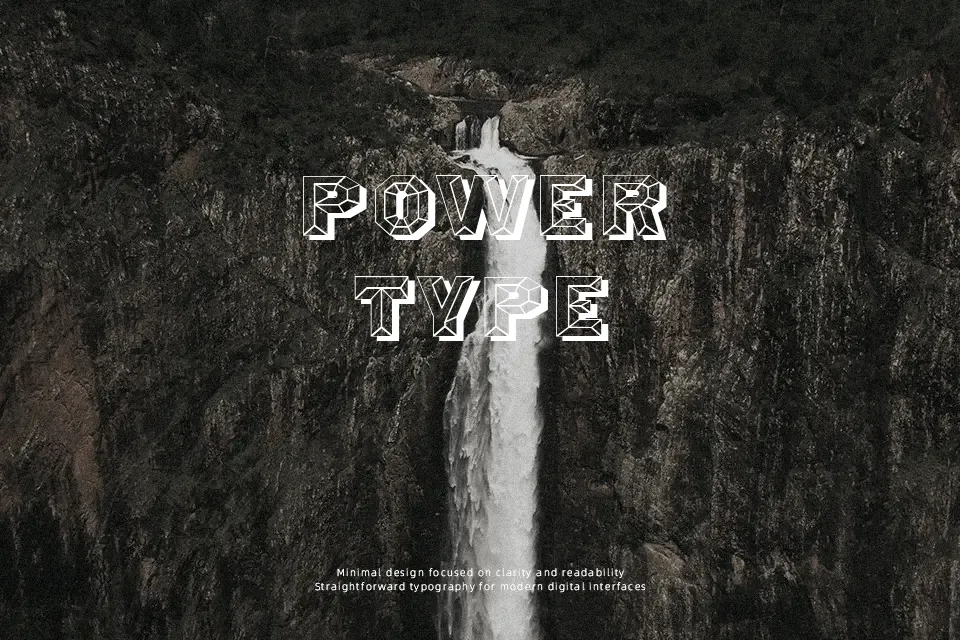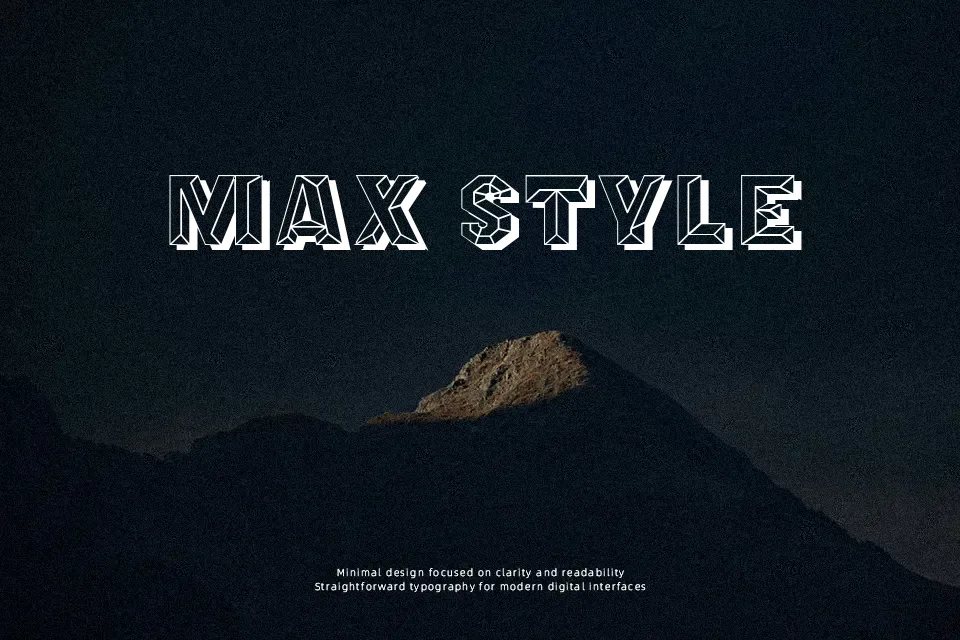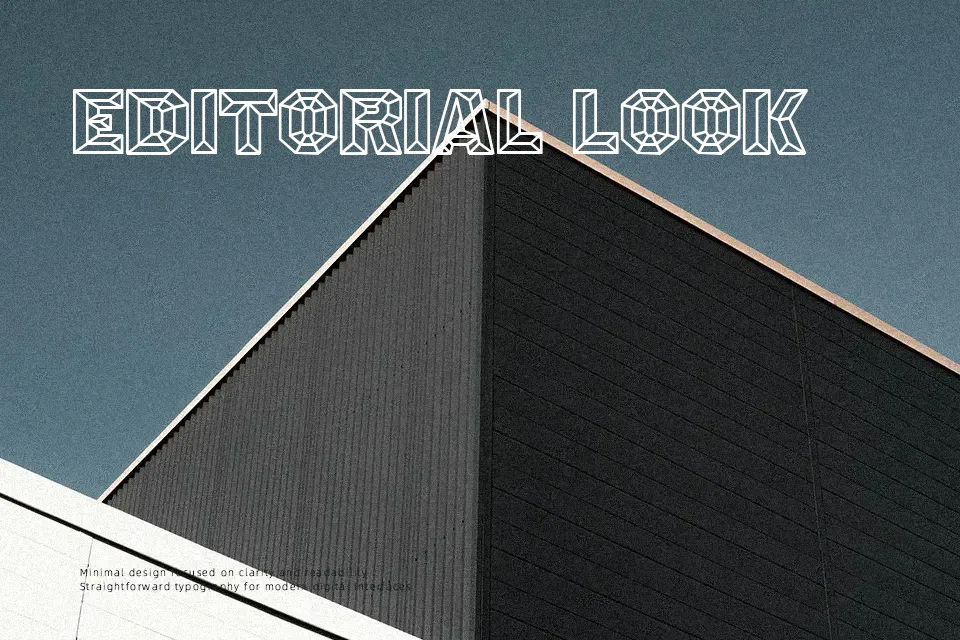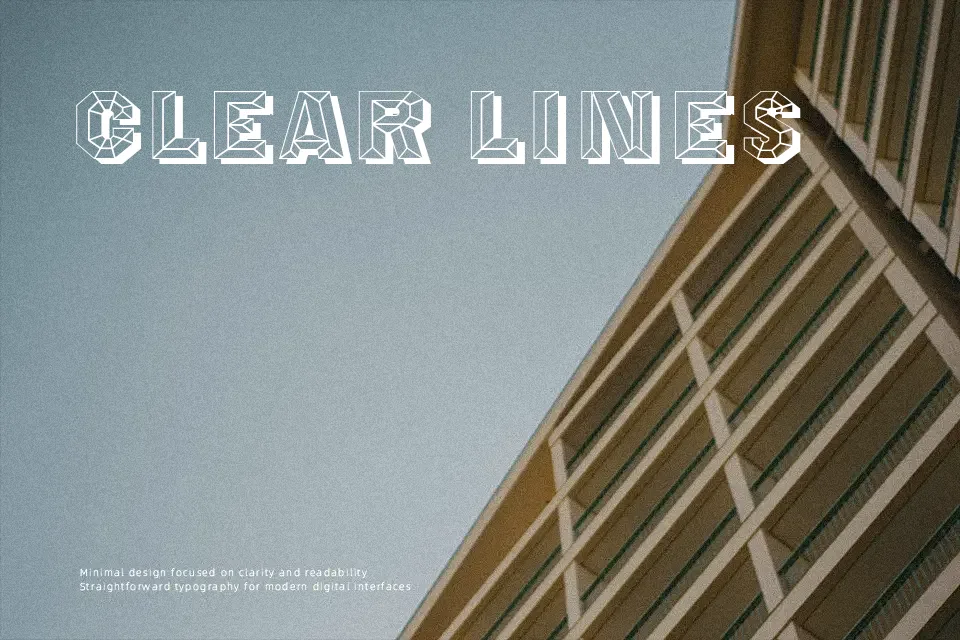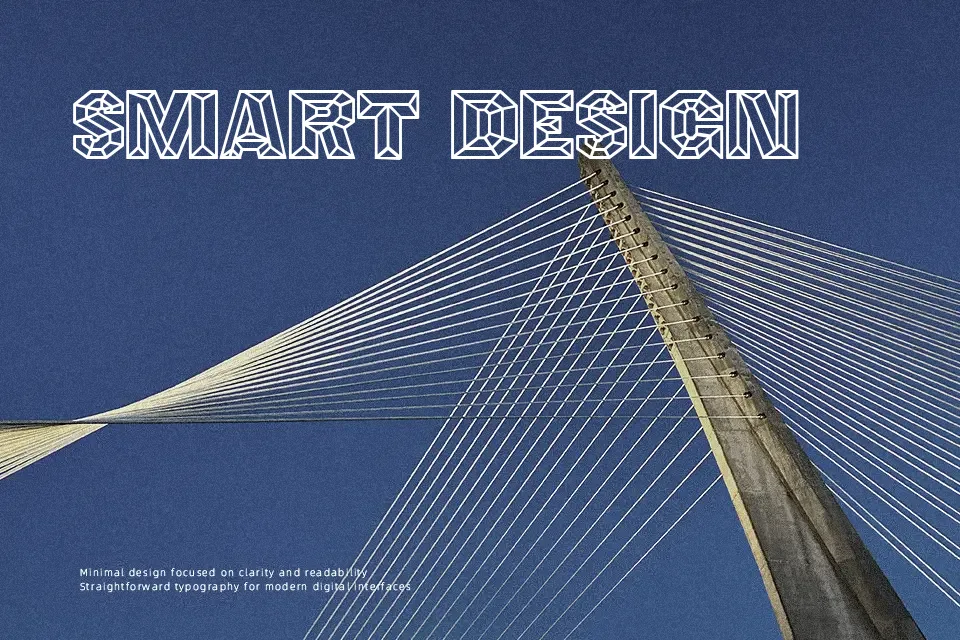
Photographer Font is designed for display text, using stylized letterforms that give short words a distinct visual presence. Its character shapes are more expressive than conventional reading type, making it better suited to titles, poster copy, and branding accents than extended text. The proportions and decorative construction ask for generous sizing so individual details remain recognizable. Spacing appears most effective when words are kept short and given room to breathe. The typeface can establish a creative tone in a headline, but dense settings and small sizes are likely to reduce clarity.
Best For: photography portfolio titles,creative poster headlines,portfolio cover graphics,visual branding accents
Perfect for branding, headline, and poster, with a artistic and decorative style.